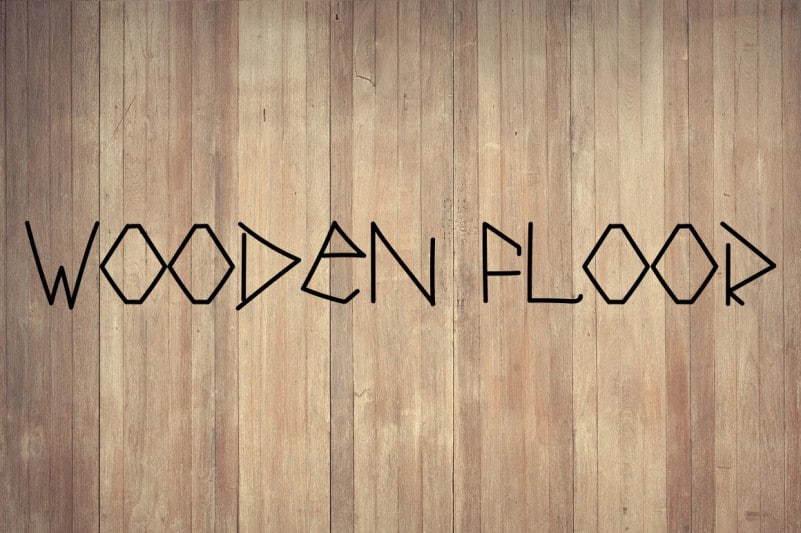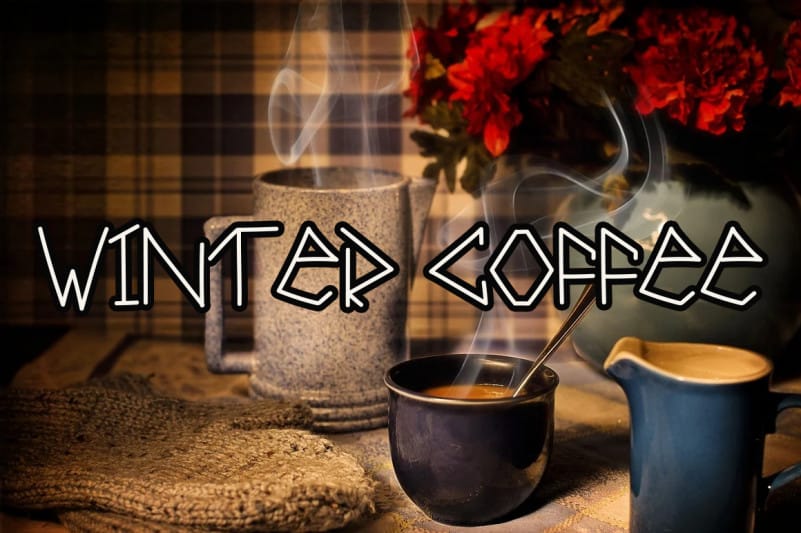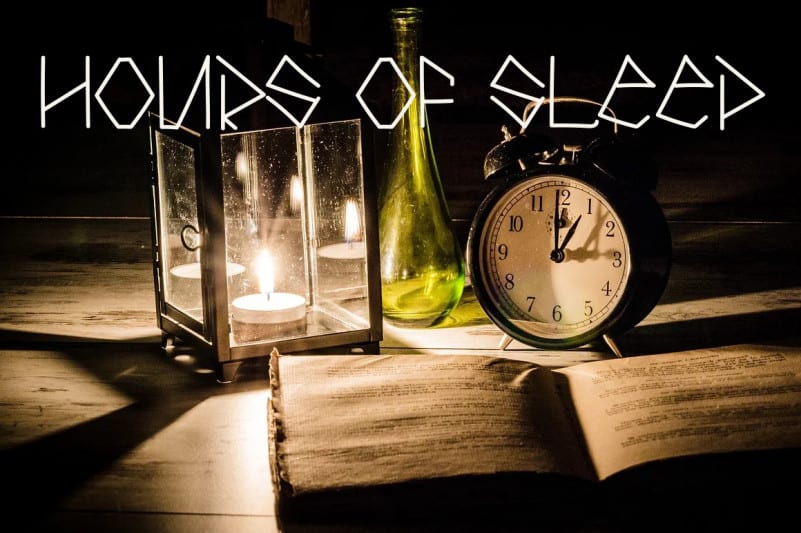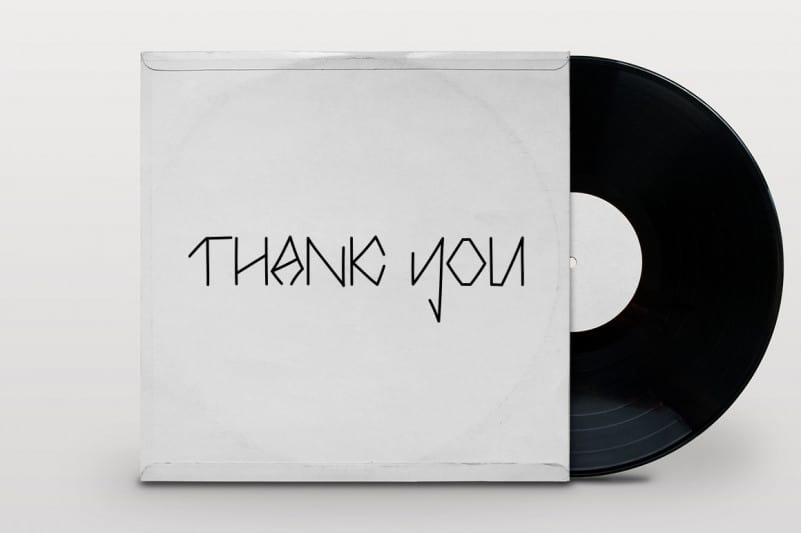
Sweet Home Font
Sweet Home Font is a unique and incredibly quirky display font. Its natural and cool style makes it incredibly fitting to a large pool of designs. Have fun with this beautiful font and explore its endless variations.
Latest letters that can be used for various products, invitations, wall hangings, weddings, and more.